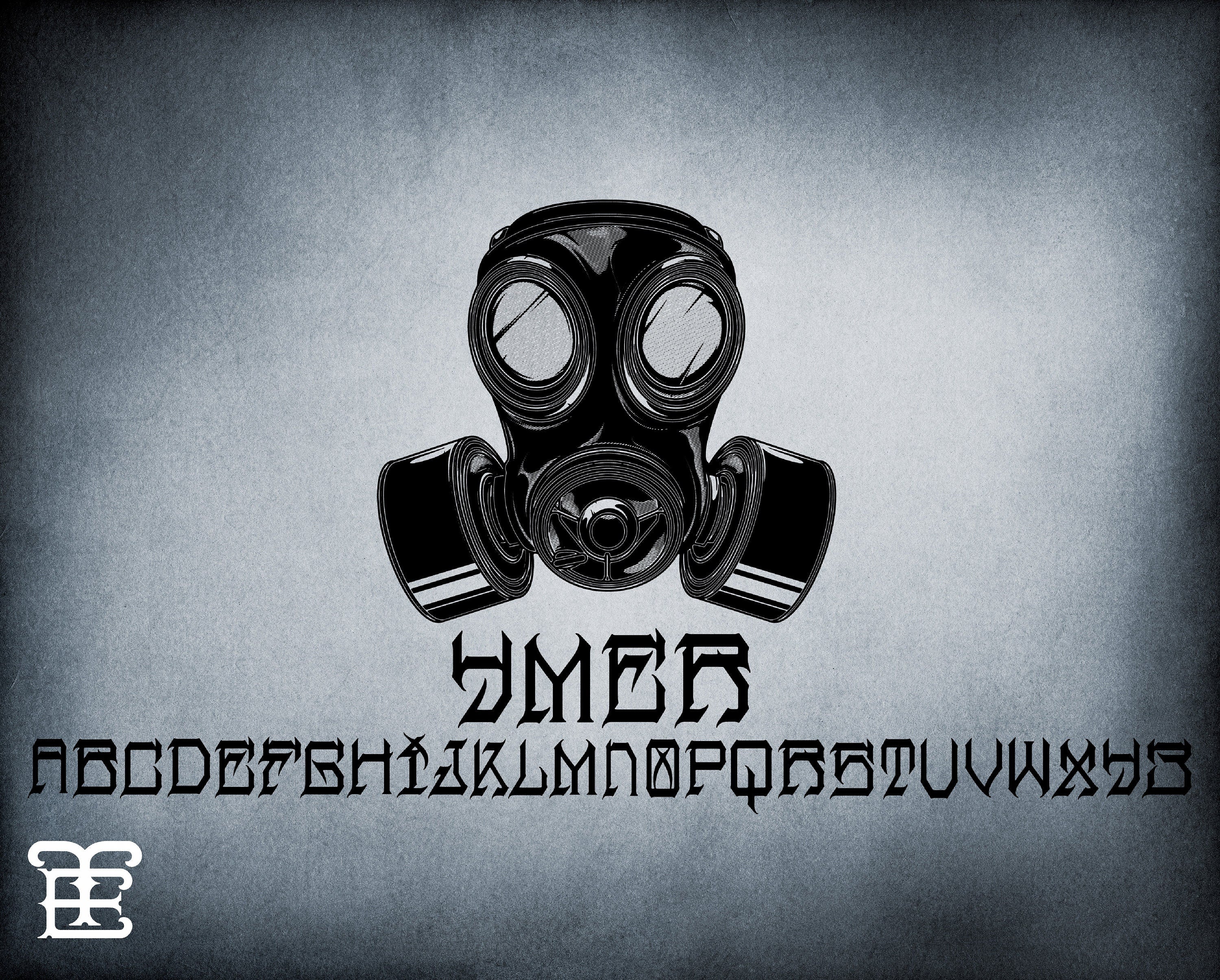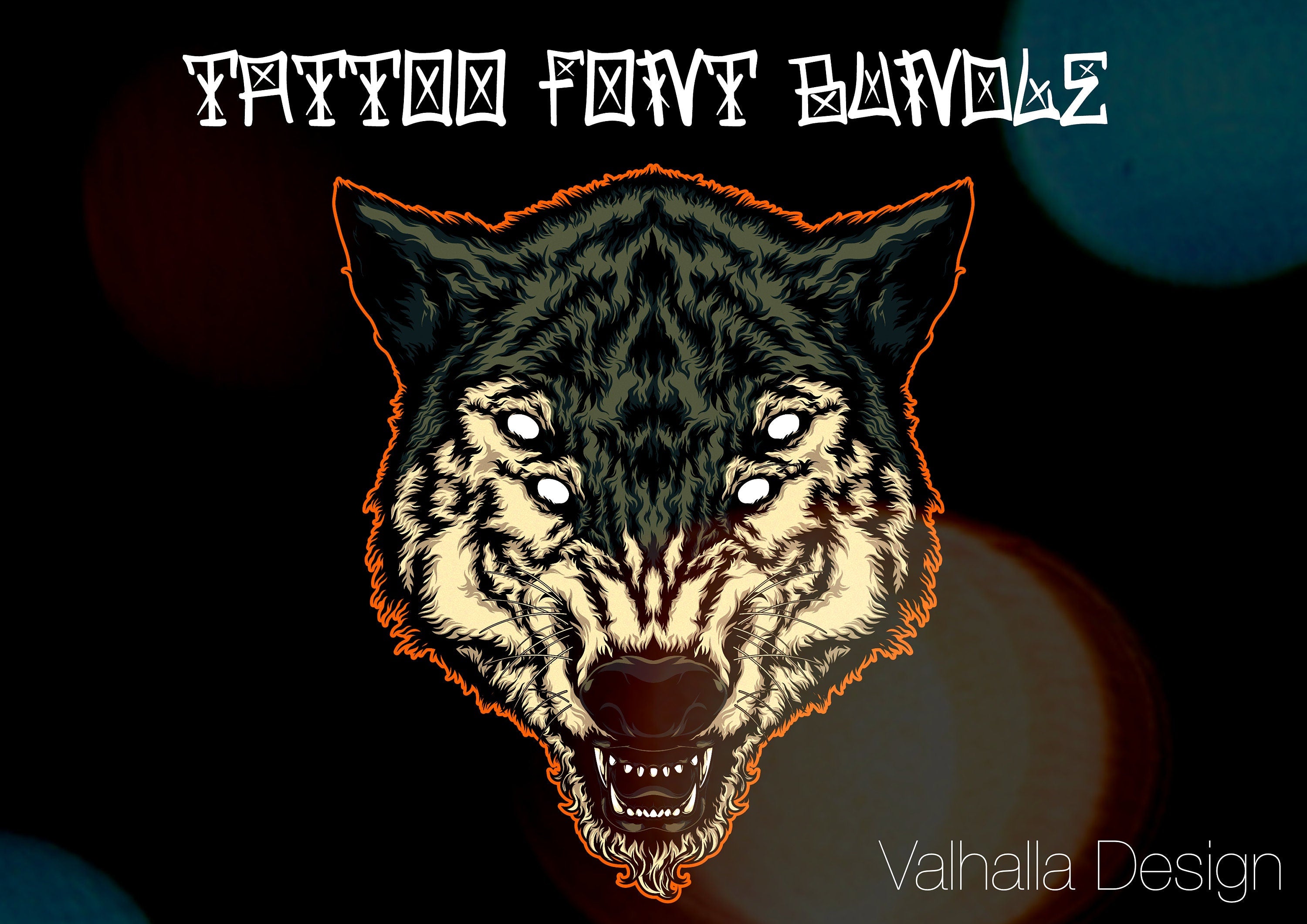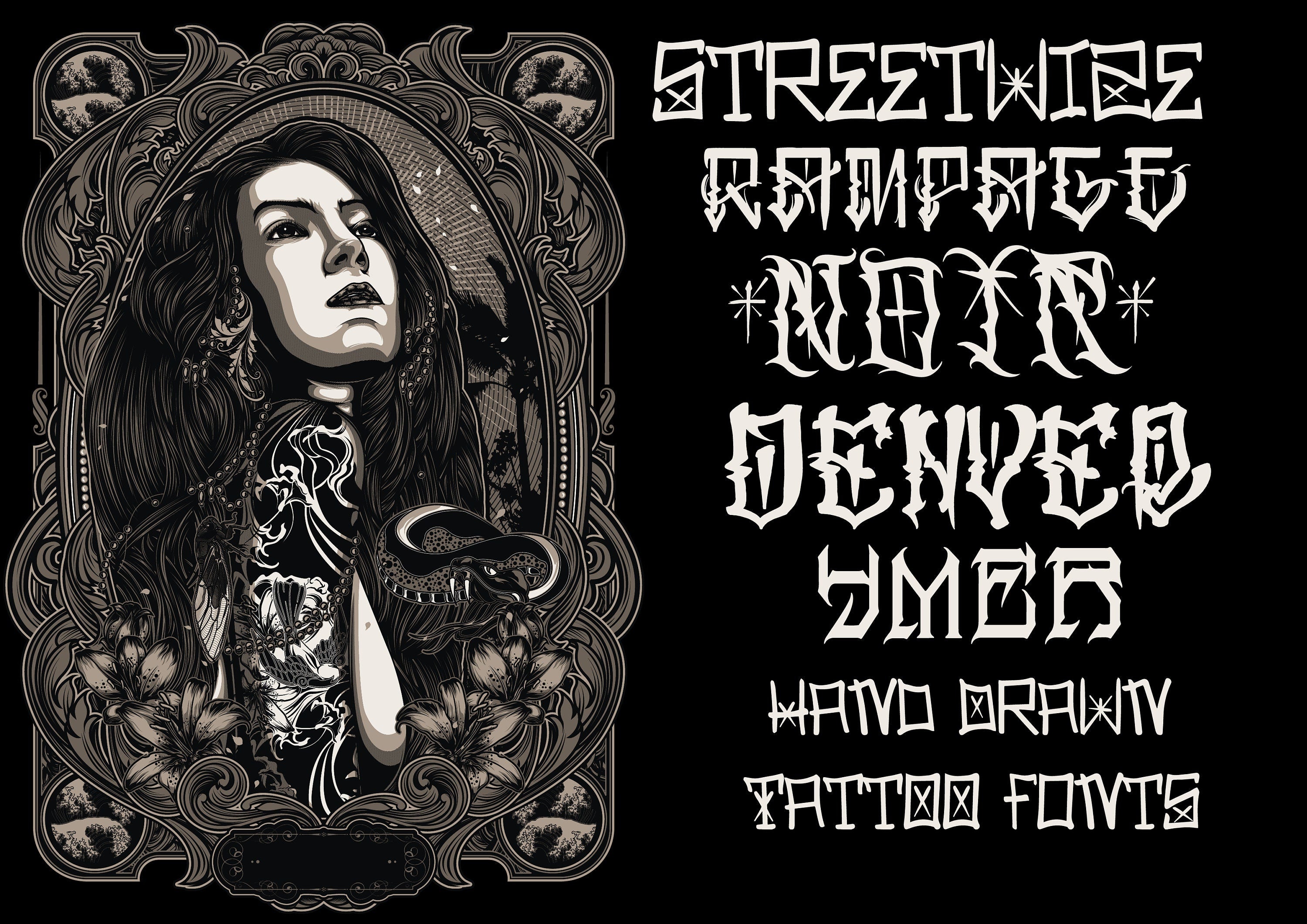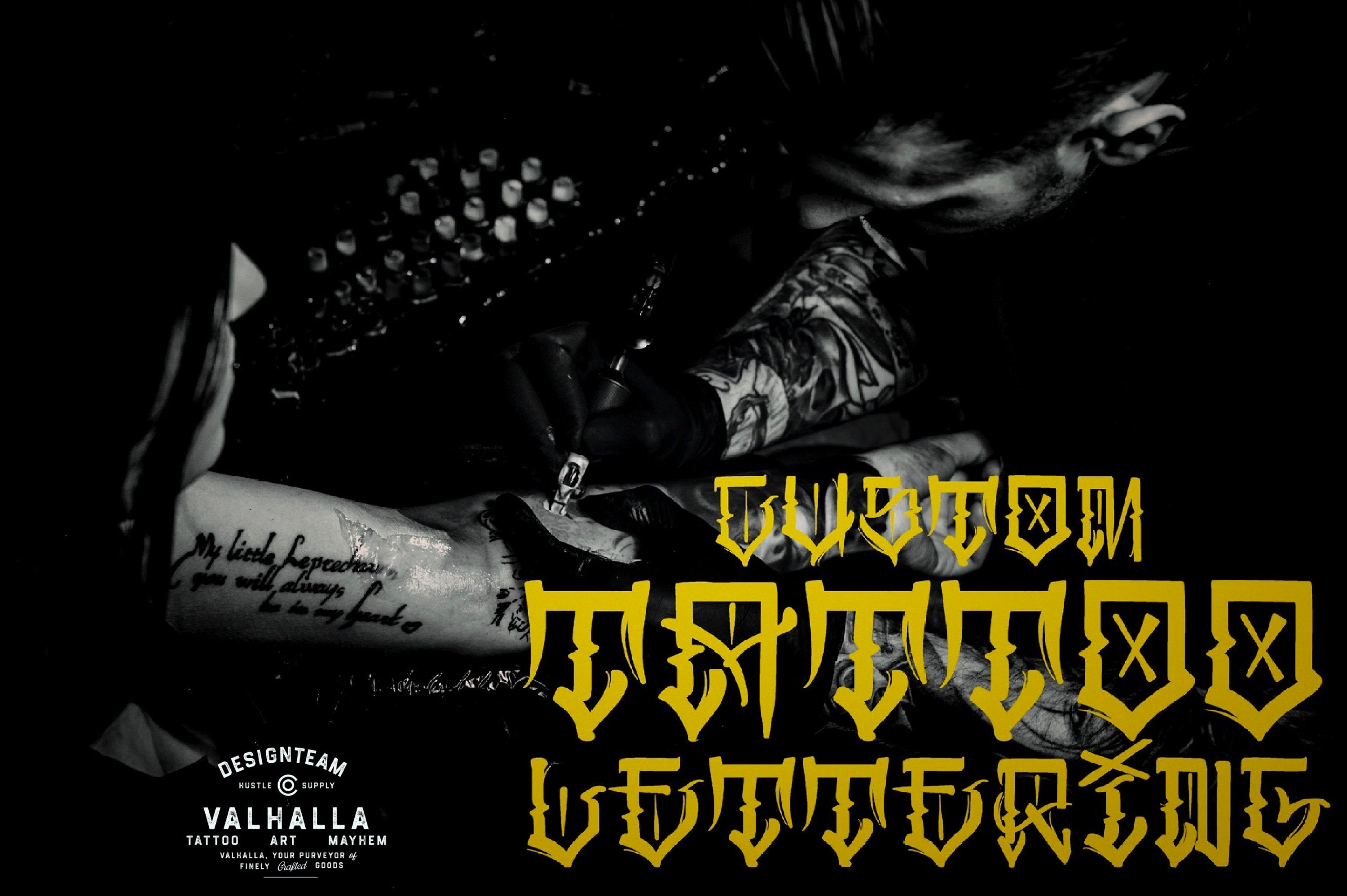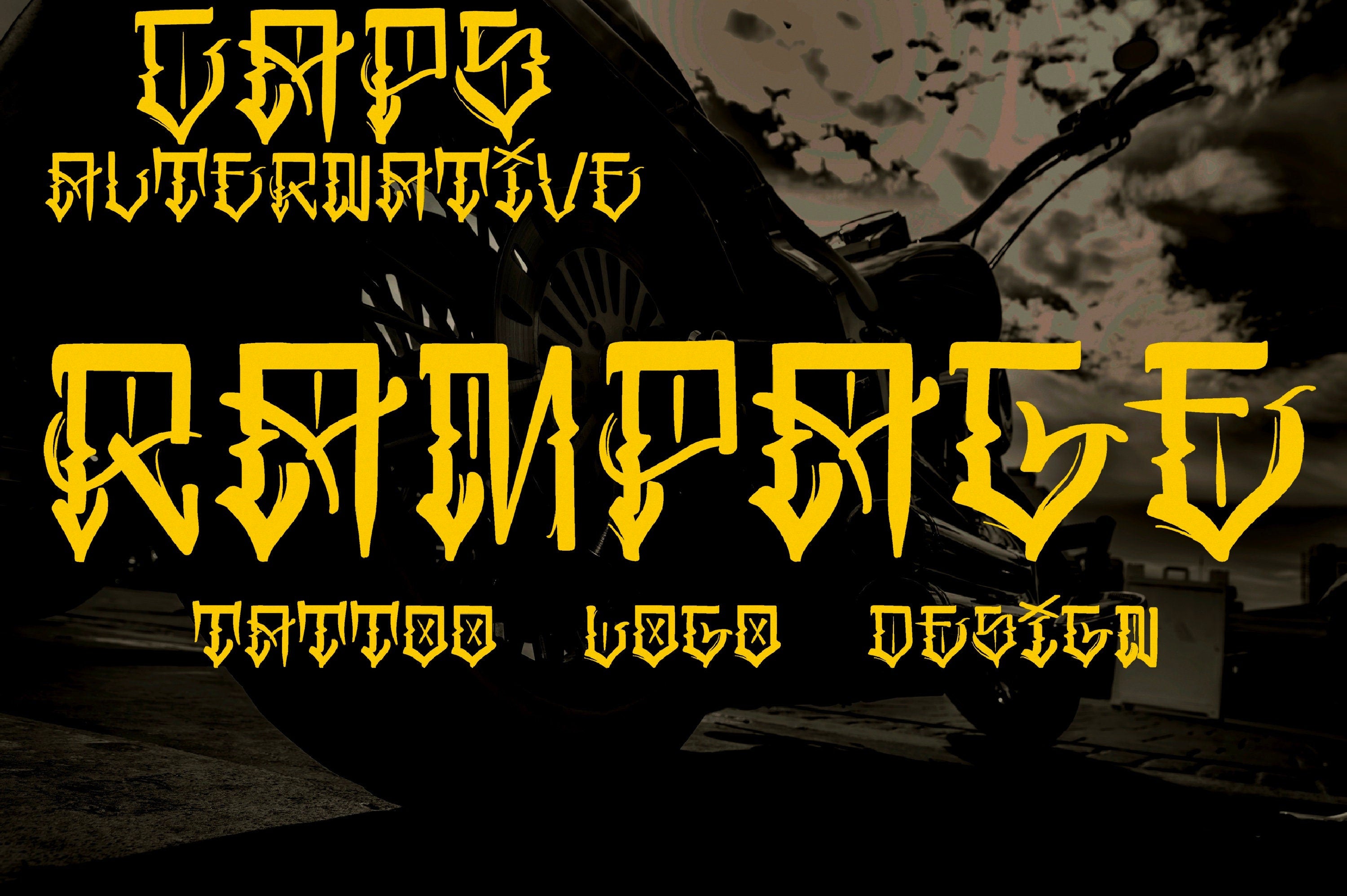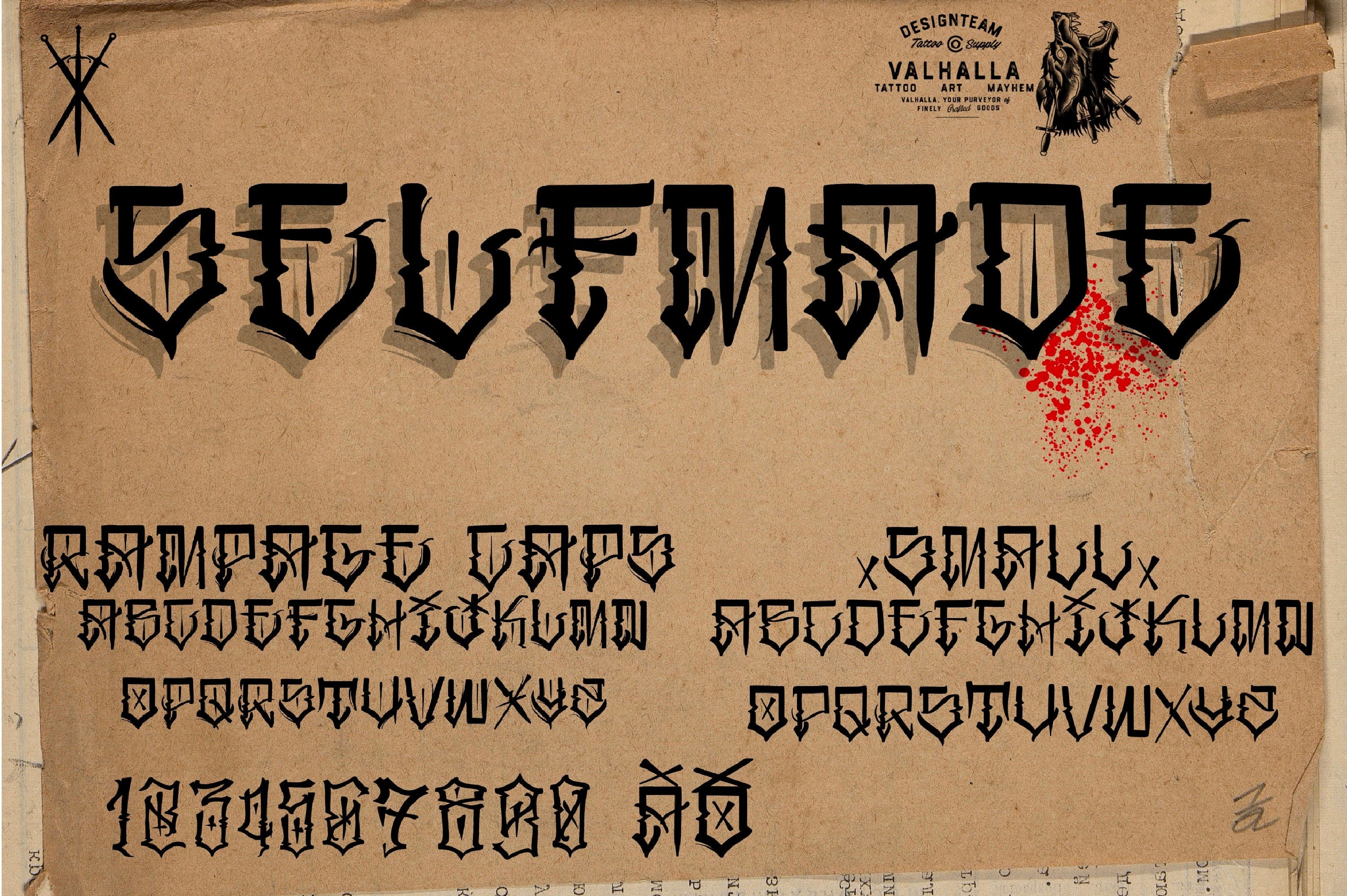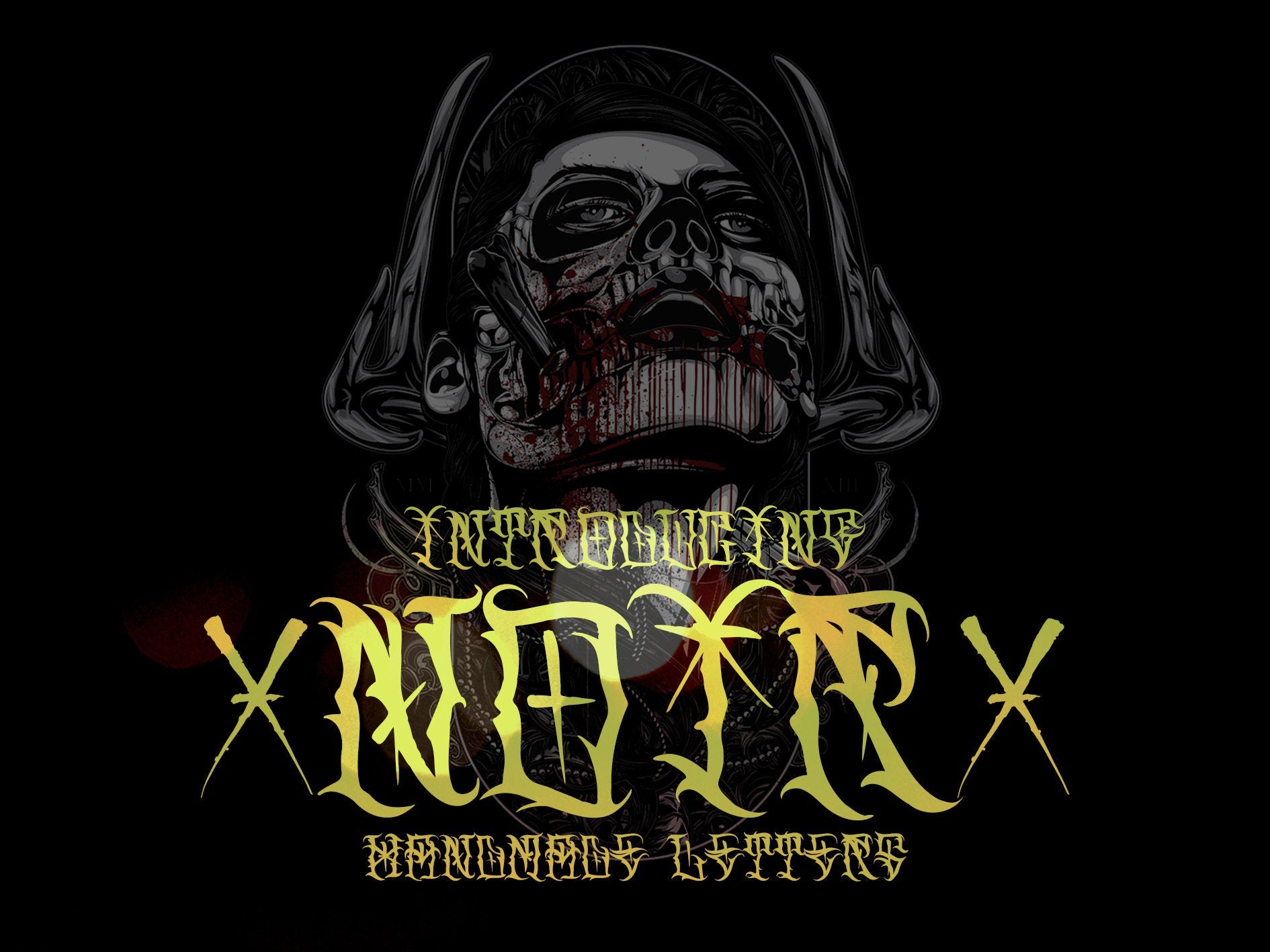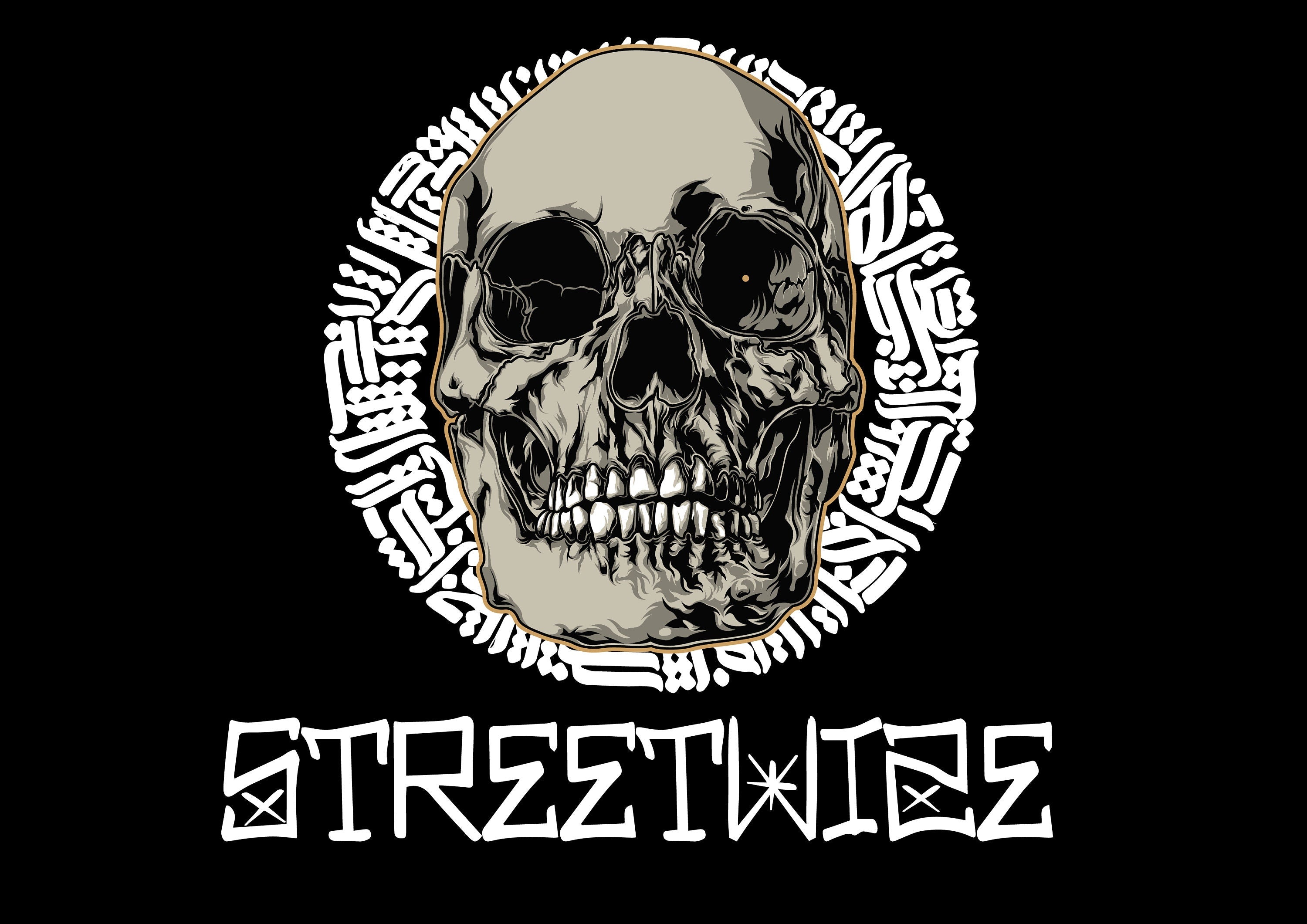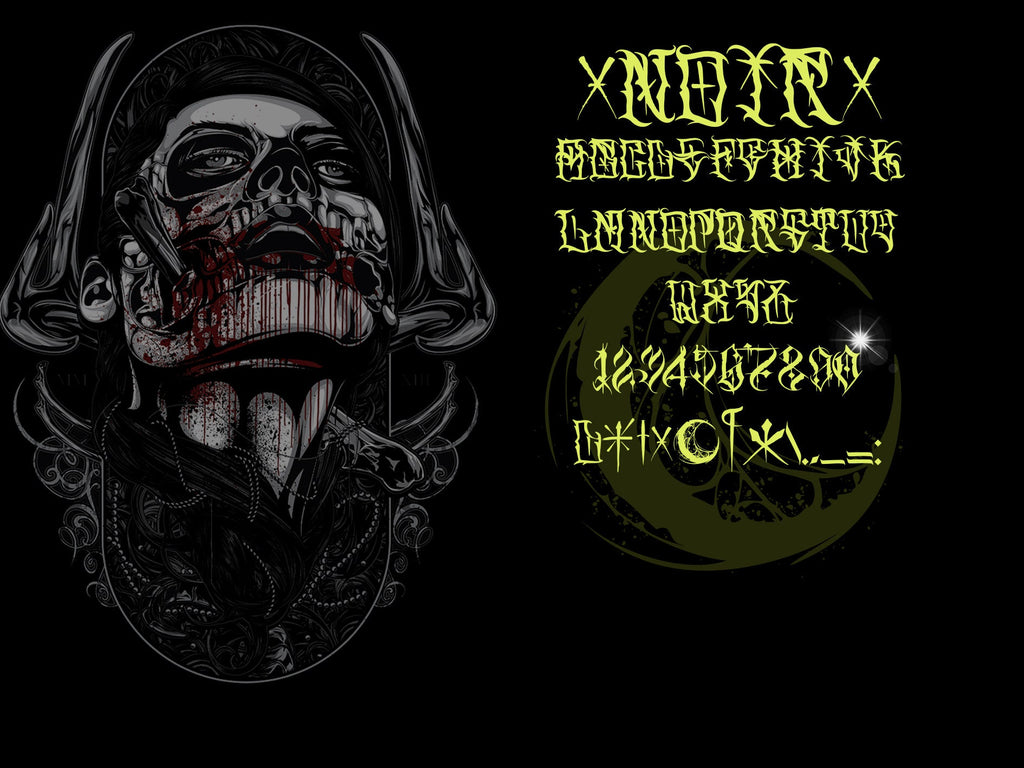
Valhalla custom tattoo fonts bundle
A bundle with 5 hand drawn custom fonts with some xtras included from Valhalla design team.
Noir
Rampage
Streetwize
Ymer
Denver